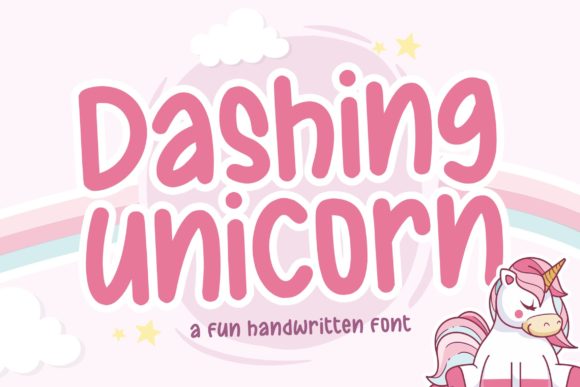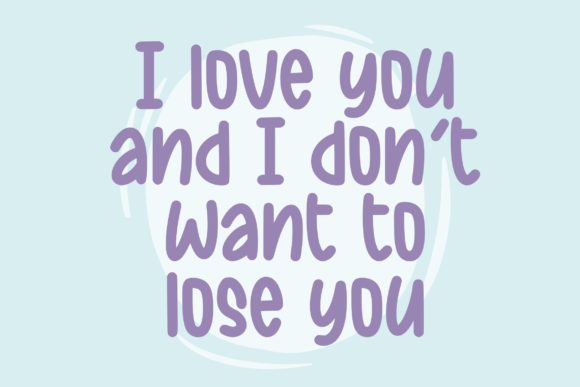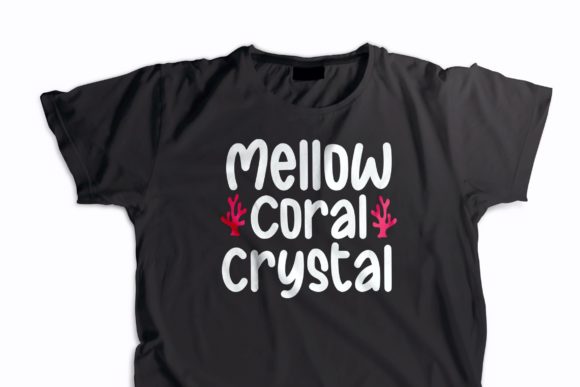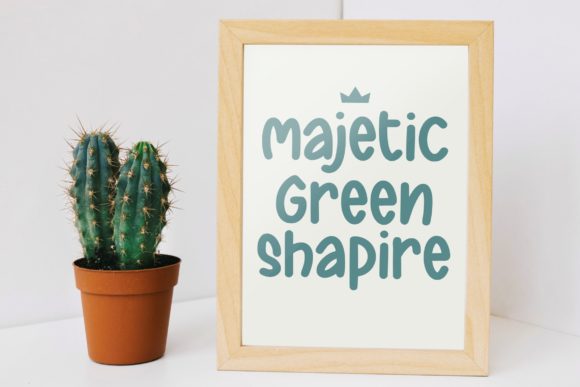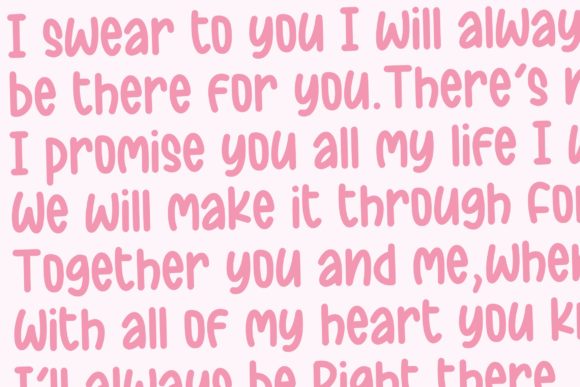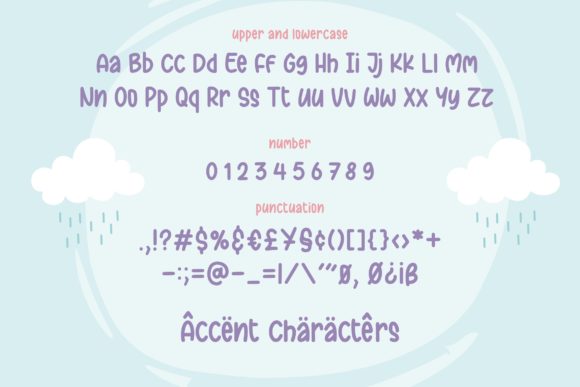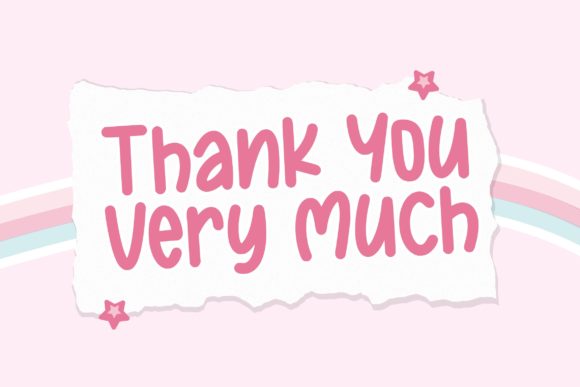
Dashing Unicorn Font
About Dashing Unicorn Font
Dashing Unicorn is a sweet and colorful handwritten font. It has beautiful and neat characters and as a result, it matches a wide pool of designs. Add it to your most creative ideas and notice how it makes them come alive!